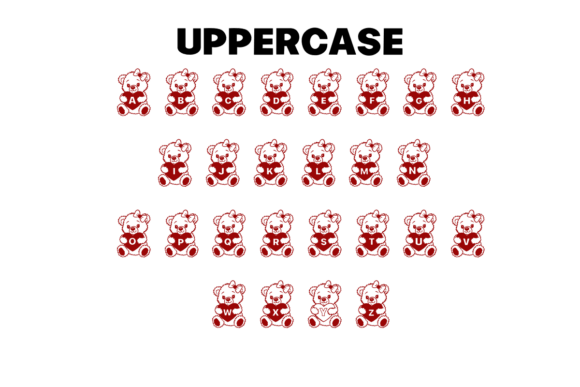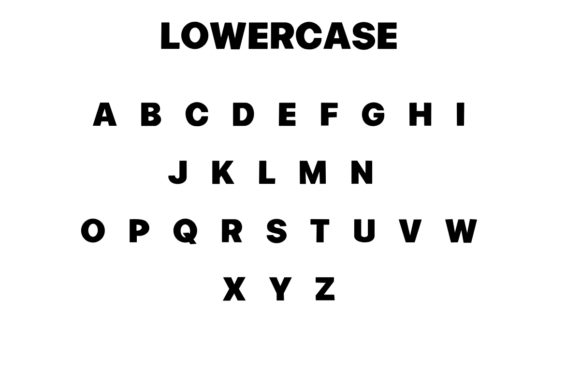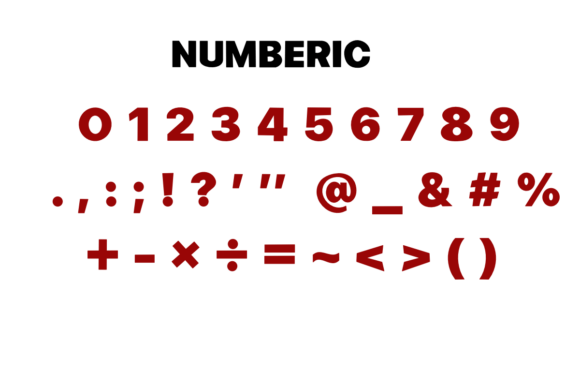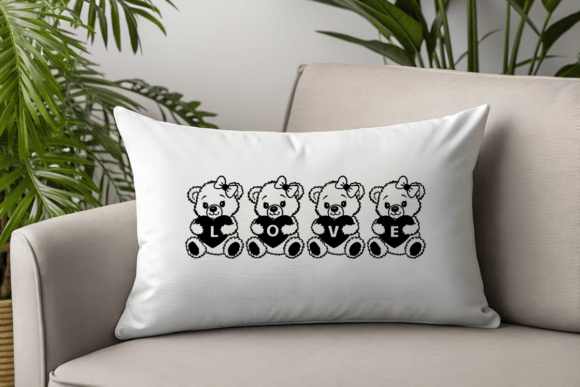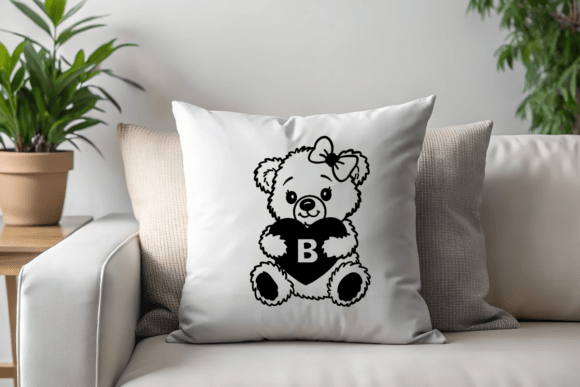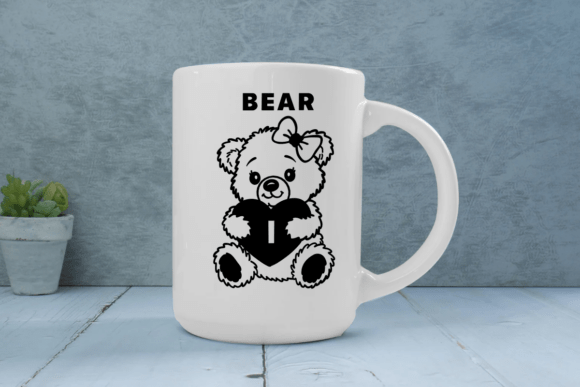
Introduction to Love Bear Font Font
Fonts play a crucial role in design, and the Love Bear Font font is a typeface that brings both character and versatility to any project. Whether you’re working on a branding project, a website, or a print design, the Love Bear Font font offers a unique style that can elevate your work.
Love Bear is a lovely decorative font.
Add it to your creative projects, and you will love the results .
Key Features of Love Bear Font Font
Why Choose Love Bear Font Font?
The Love Bear Font font is more than just a typeface – it’s a design tool that helps you communicate your message with style and clarity. Its unique character set and versatile design make it suitable for a wide range of applications, from elegant invitations to bold headlines.
With its carefully crafted letterforms and balanced proportions, the Love Bear Font font ensures readability and visual appeal across all mediums.
What makes Love Bear Font font special?
The Love Bear Font font stands out with its unique design, exceptional readability, and versatility across various design applications.